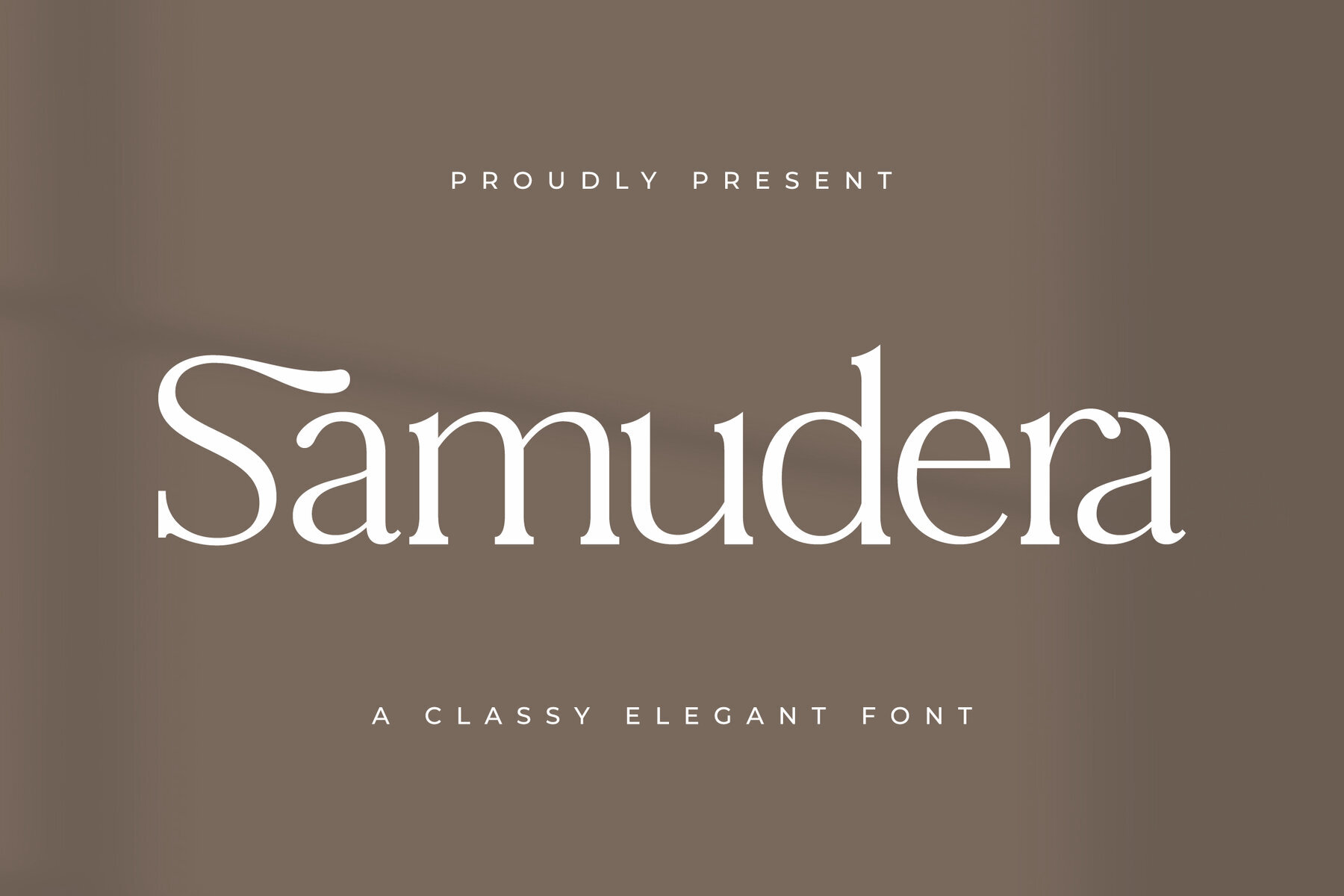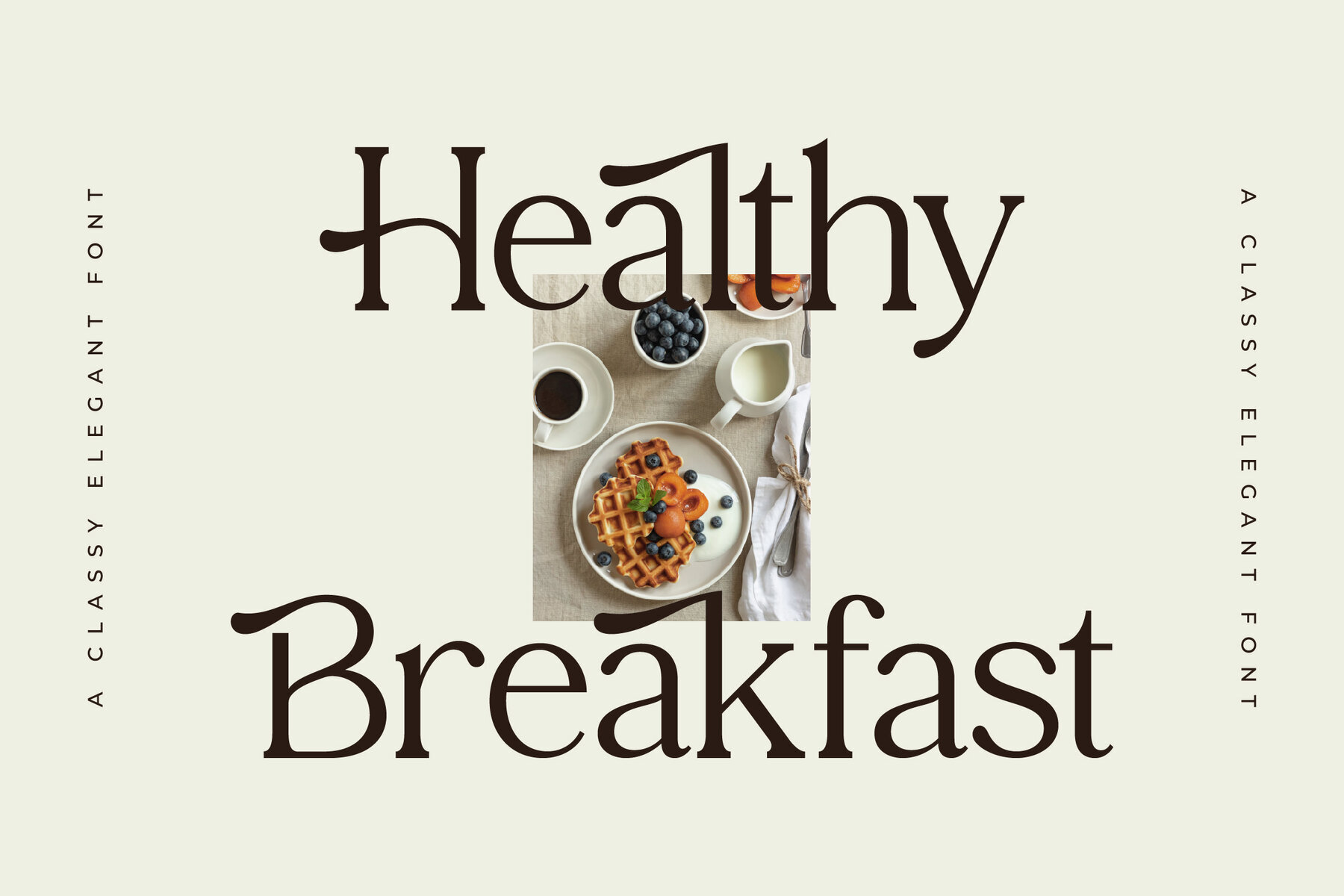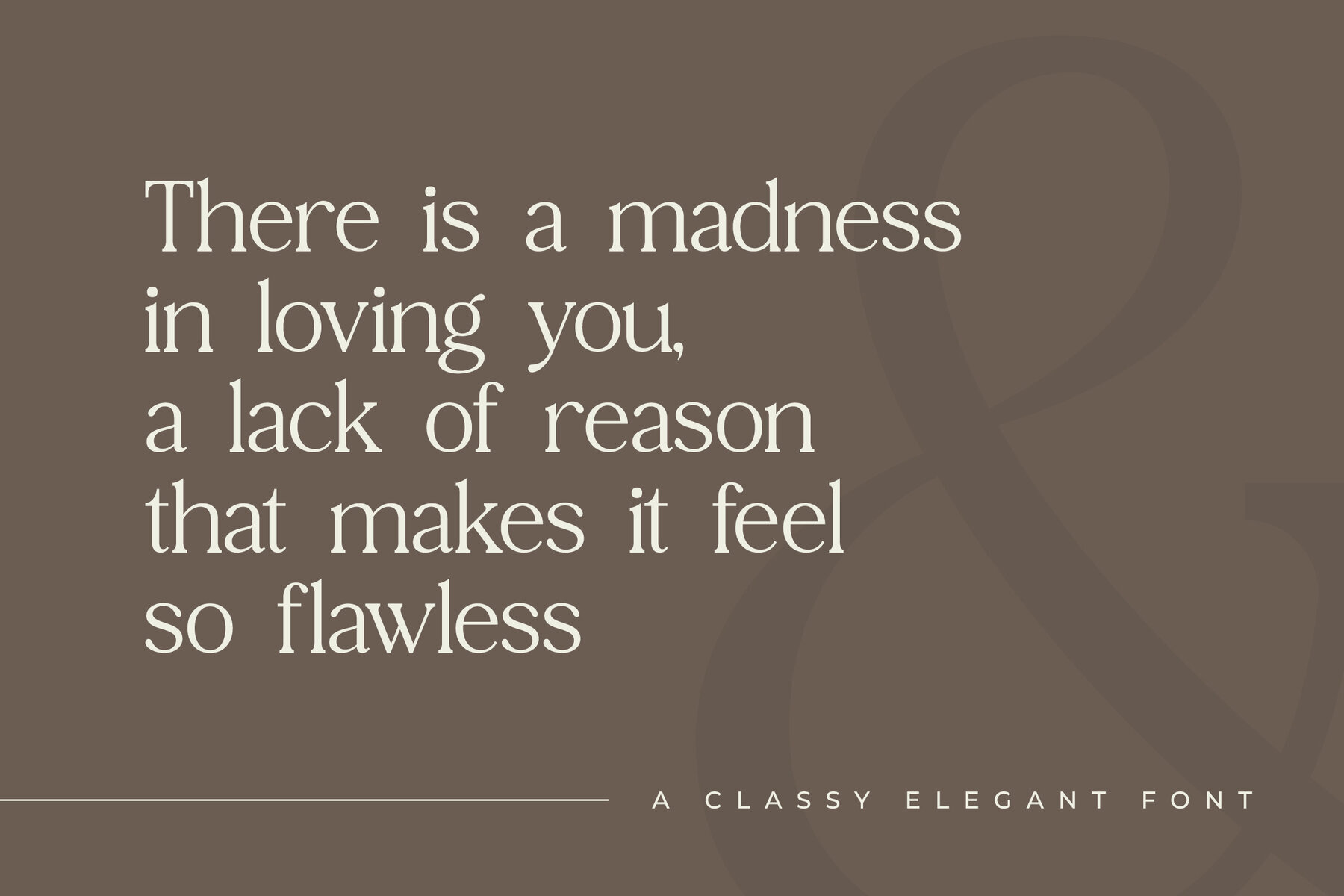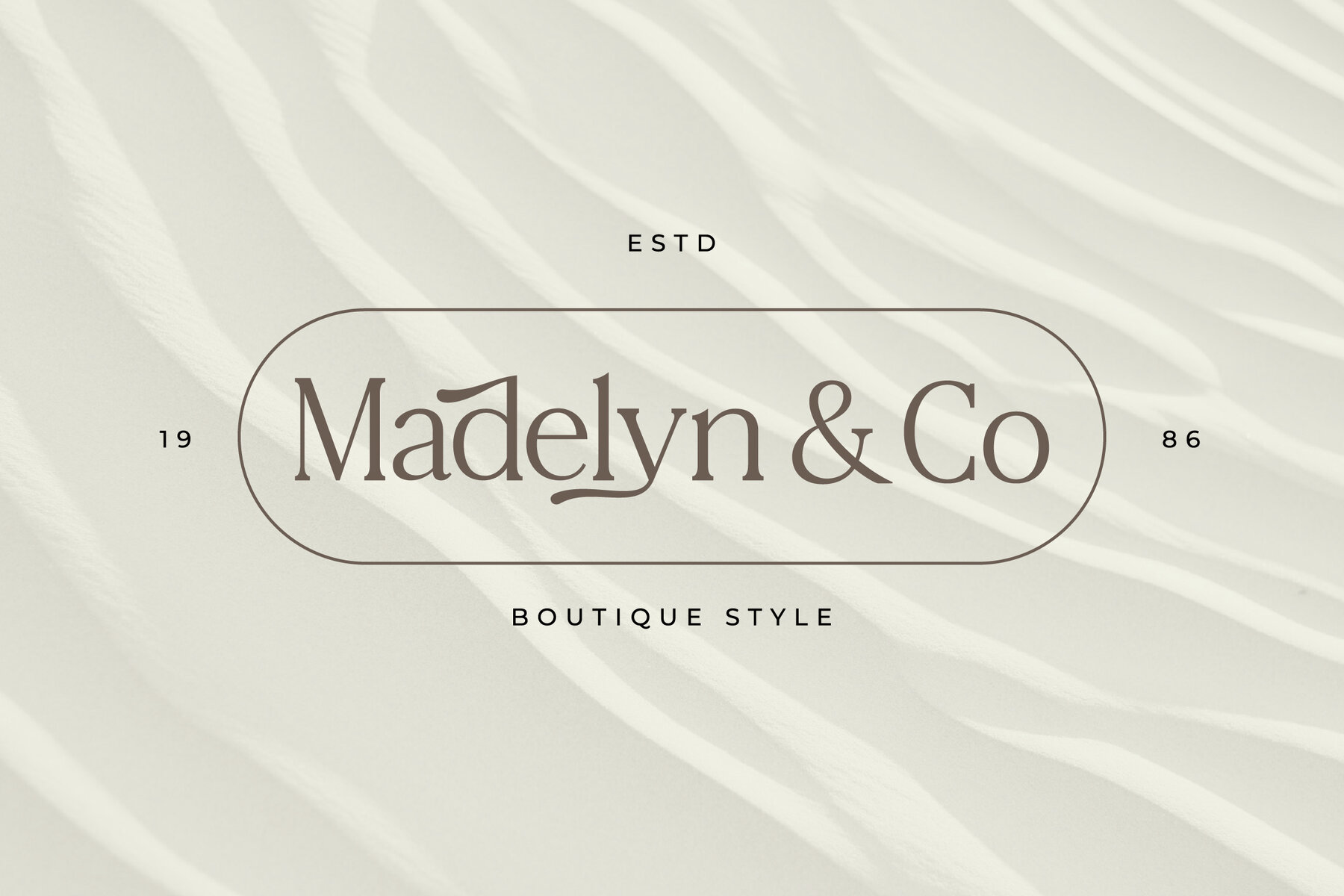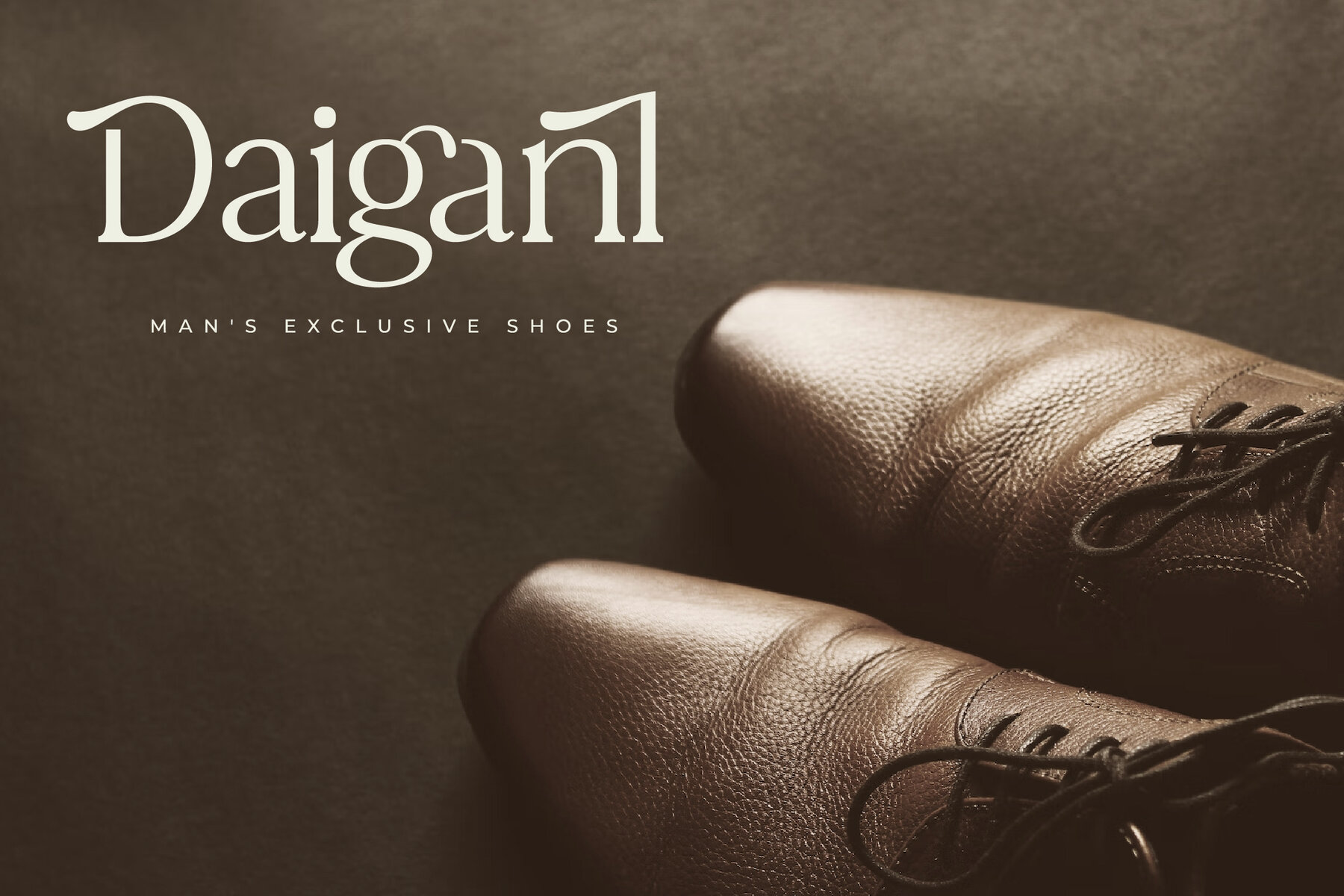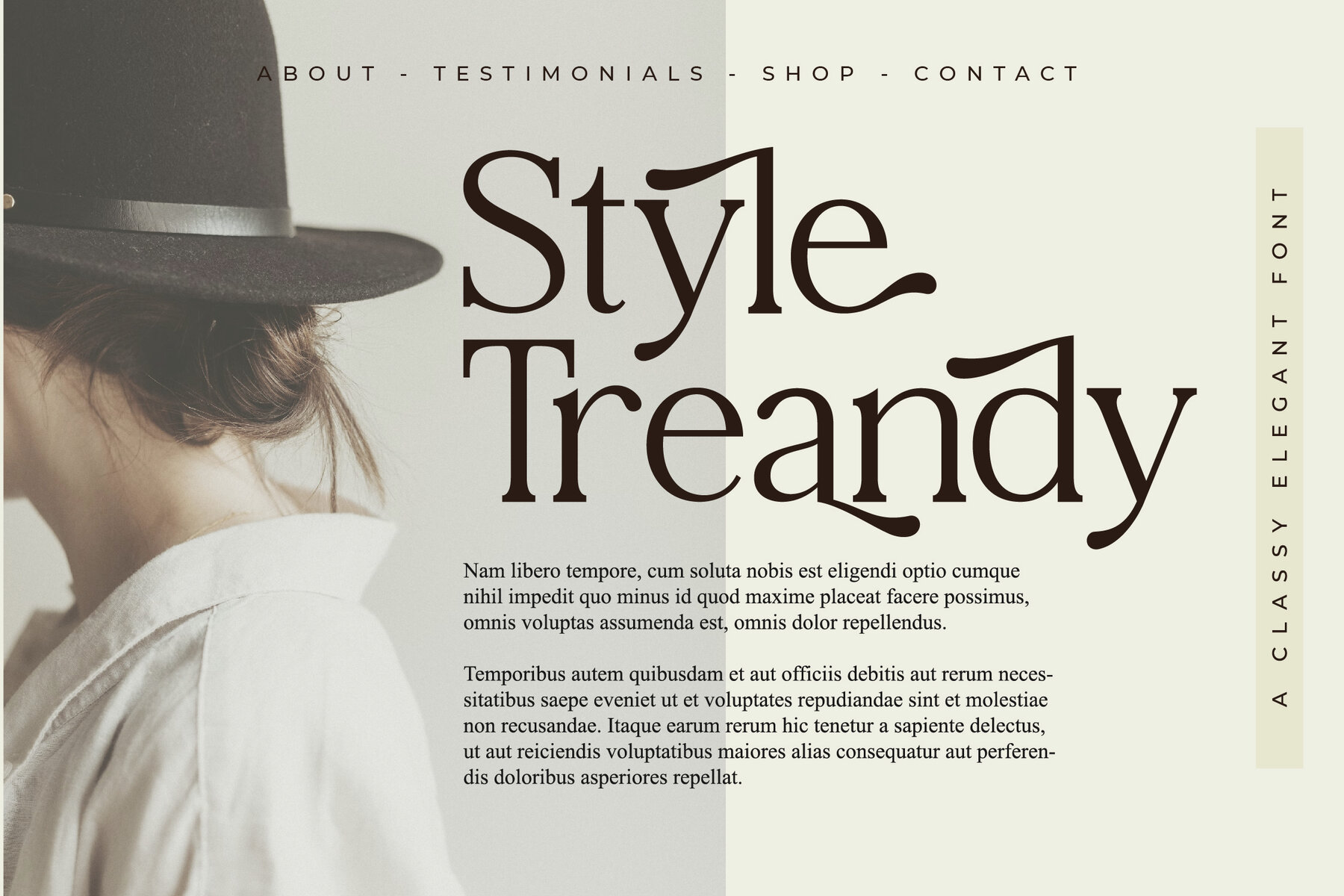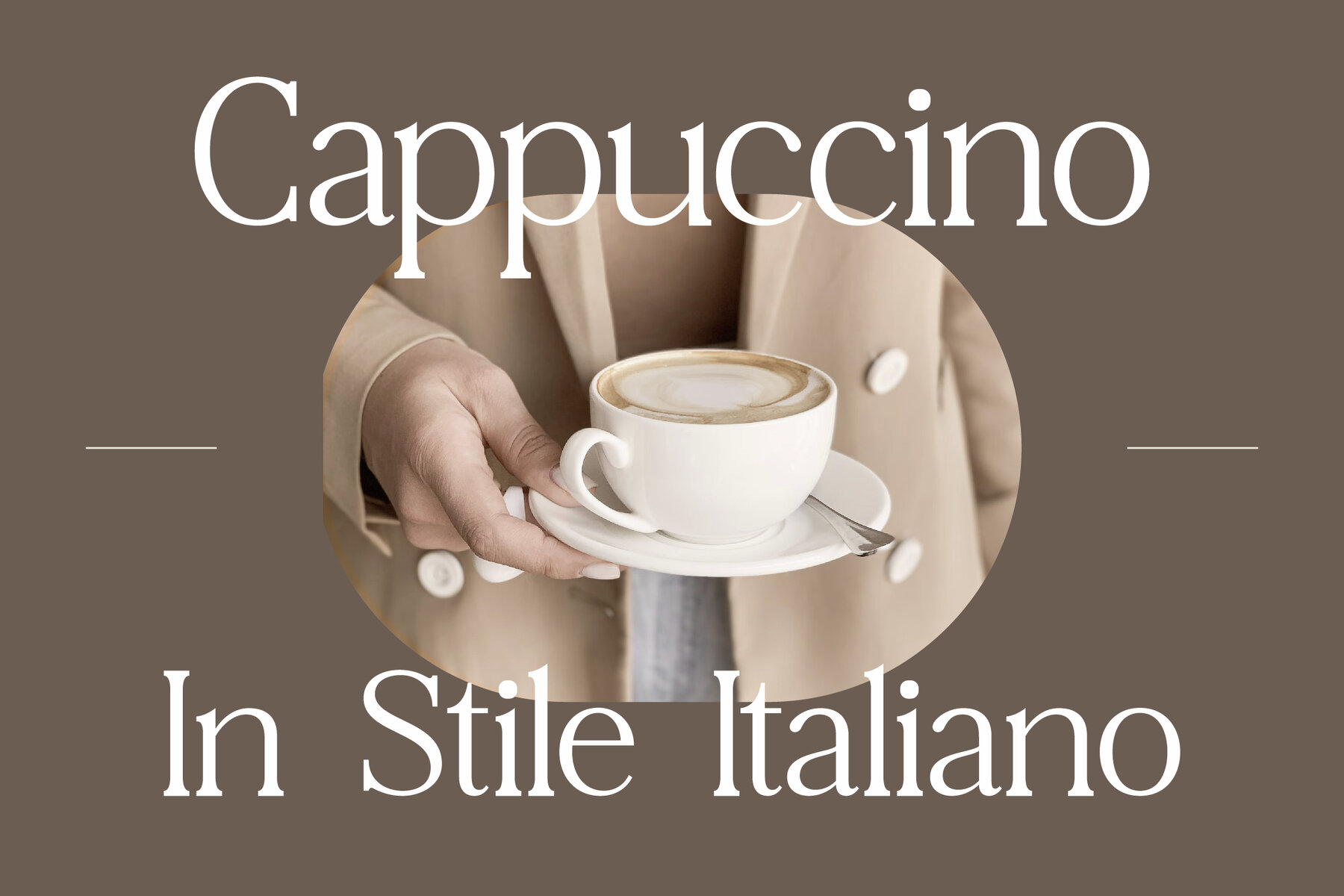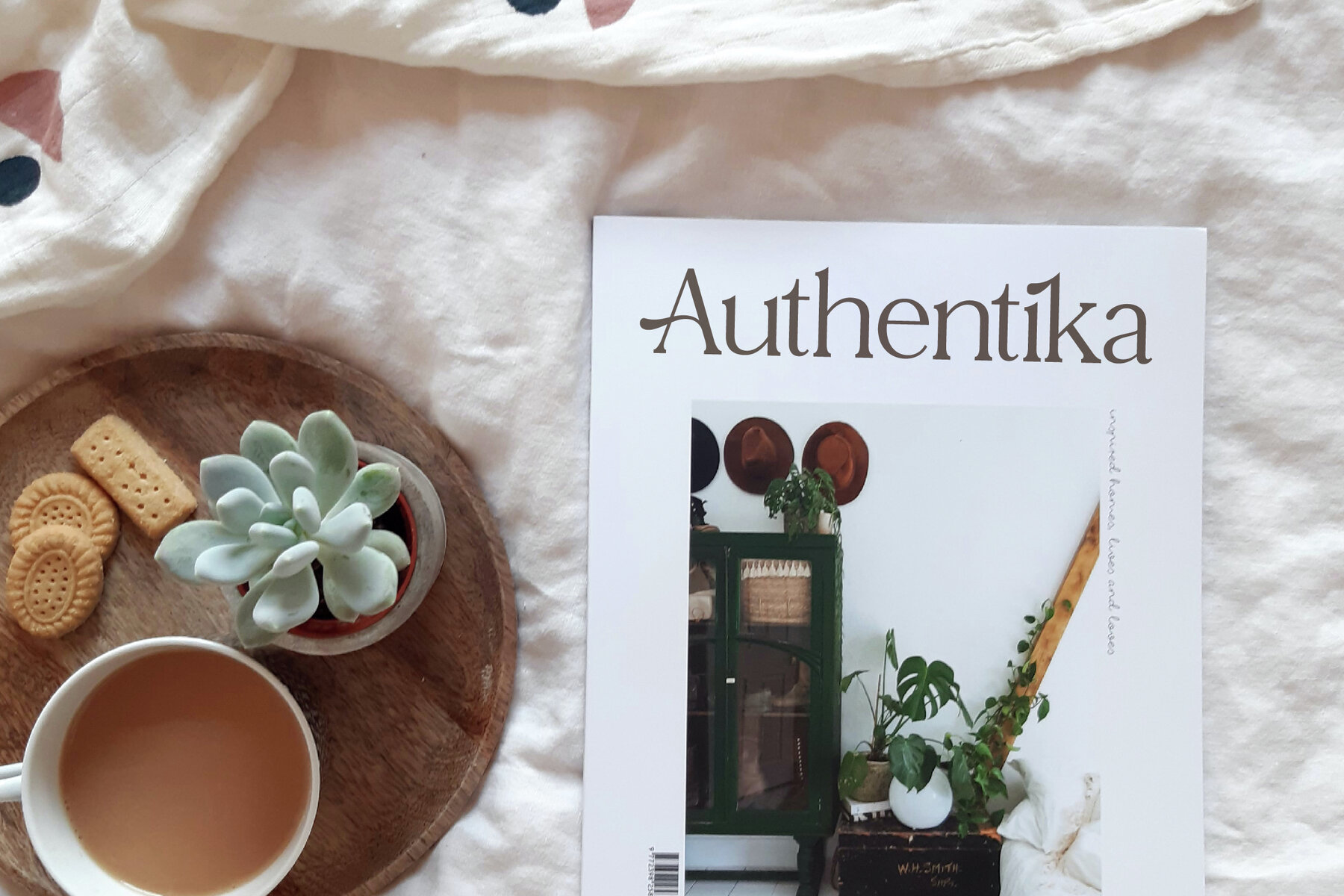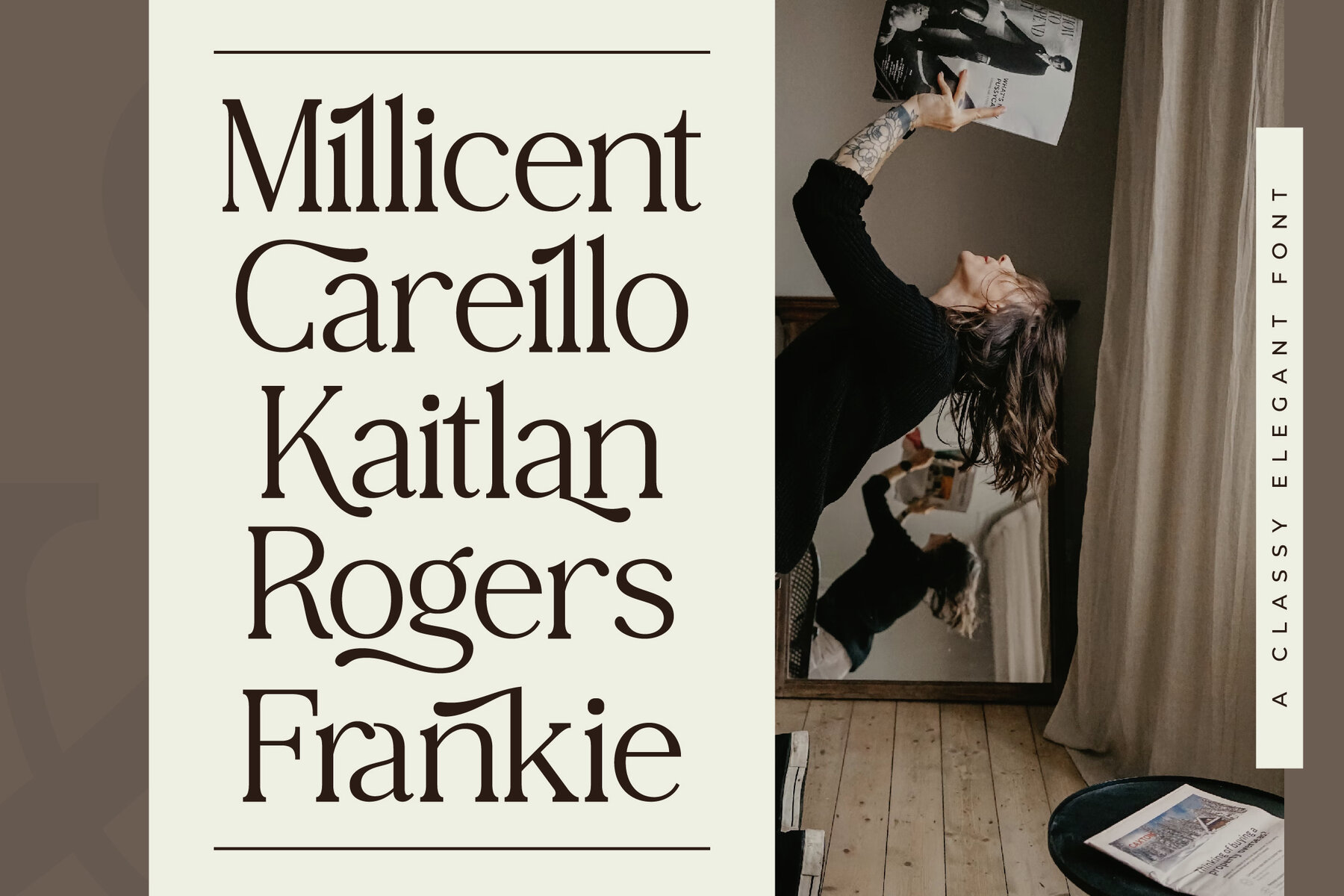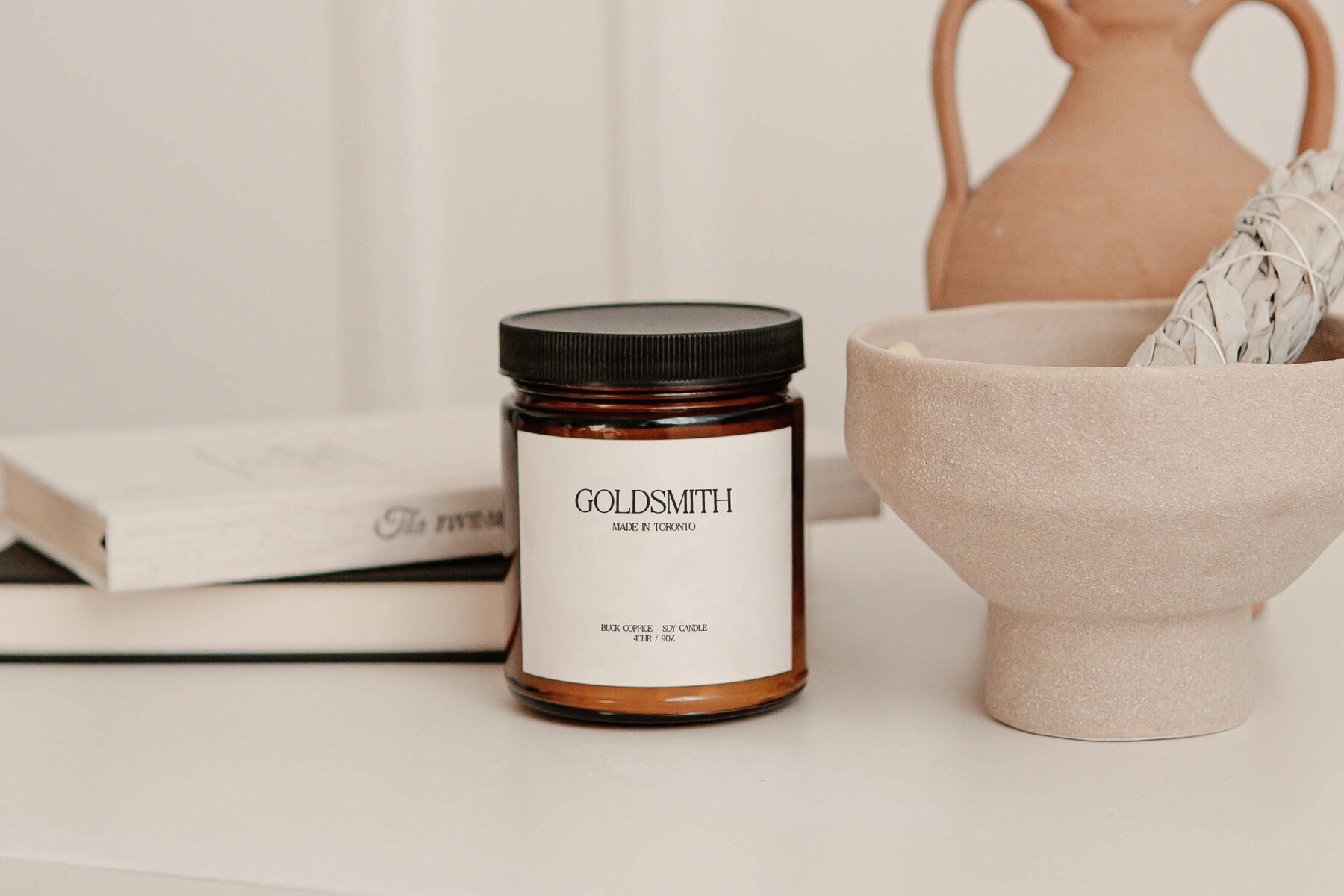
Samudera Font
Introducing the Samudera Typeface, an exquisite serif font that blends modern elegance with classic charm. Designed with a unique flair, this typeface is ideal for sophisticated logos, book or movie titles, fashion brands, magazines, apparel designs, and inspirational quotes. Its versatile style ensures that it will elevate any creative project.Samudera Typeface